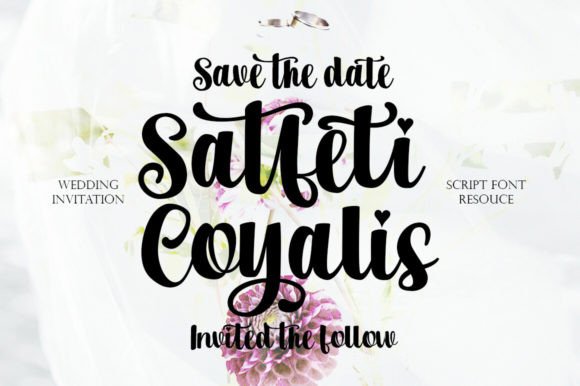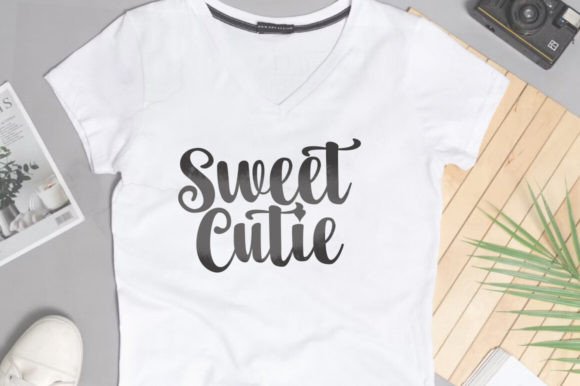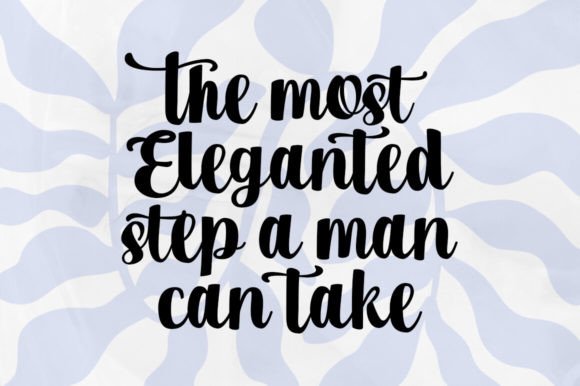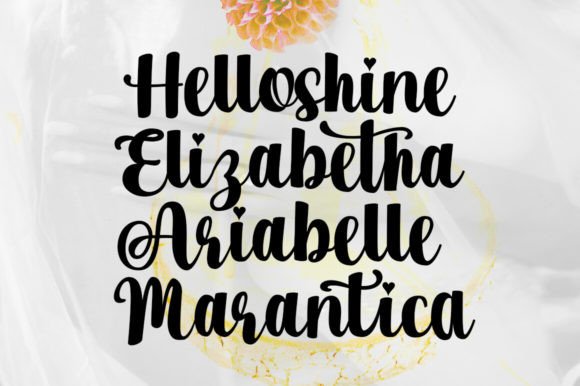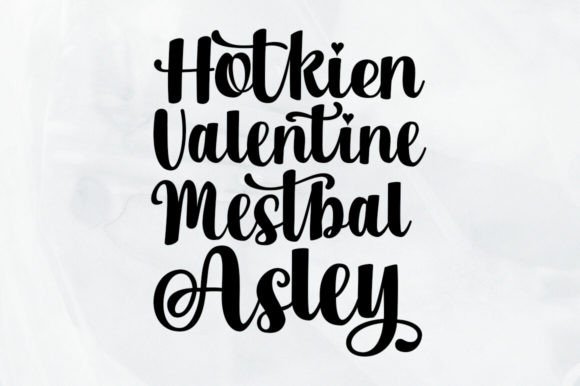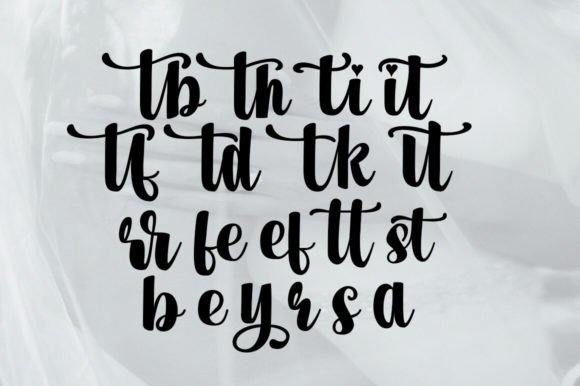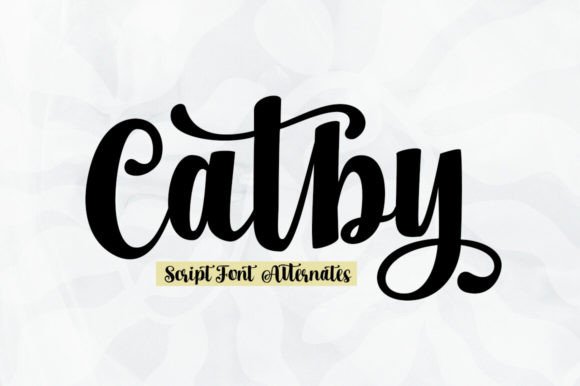
Introducing Catby Font: Elevate Your Designs with Elegance and Sophistication
Are you a designer or crafter looking for a font that exudes style, elegance, and sophistication? Look no further than Catby Font, a stunning script font that can elevate your designs to new heights. In this article, we’ll explore the features and benefits of Catby Font, and how it can be used to create beautiful and eye-catching designs.
What is Catby Font?
Catby Font is a stylish and incredibly elegant script font that is perfect for adding a touch of sophistication to any design. With its flowing lines and cursive strokes, Catby Font is ideal for creating beautiful and eye-catching designs that require a handwritten touch. Whether you’re designing wedding invitations, thank you cards, quotes, greeting cards, logos, or business cards, Catby Font is the perfect choice.
Features of Catby Font
So, what makes Catby Font so special? Here are just a few of its key features:
• Elegant and sophisticated design: Catby Font features a beautiful, cursive script design that is both elegant and sophisticated.
• Perfect for wedding designs: With its romantic and whimsical feel, Catby Font is perfect for wedding invitations, wedding cards, and other wedding-related designs.
• Versatile: Catby Font can be used for a wide range of designs, including thank you cards, quotes, greeting cards, logos, and business cards.
• Easy to read: Despite its elegant design, Catby Font is easy to read, making it perfect for designs that require a clear and legible font.
Benefits of Using Catby Font
So, why should you choose Catby Font for your designs? Here are just a few benefits of using this beautiful font:
• Adds a touch of elegance: Catby Font adds a touch of elegance and sophistication to any design, making it perfect for designs that require a high-end feel.
• Creates a personal touch: With its handwritten feel, Catby Font creates a personal touch that is perfect for designs that require a more personal and intimate feel.
• Versatile: Catby Font can be used for a wide range of designs, making it a versatile font that can be used again and again.
• Easy to use: Catby Font is easy to use and can be easily integrated into your designs.
How to Use Catby Font
So, how can you use Catby Font in your designs? Here are a few ideas to get you started:
• Wedding invitations: Use Catby Font to create beautiful and elegant wedding invitations that set the tone for the big day.
• Thank you cards: Add a touch of elegance to your thank you cards with Catby Font.
• Quotes: Use Catby Font to create beautiful and eye-catching quotes that can be used on social media or in designs.
• Greeting cards: Create beautiful and elegant greeting cards with Catby Font.
• Logos: Use Catby Font to create a beautiful and elegant logo for your business or brand.
• Business cards: Add a touch of sophistication to your business cards with Catby Font.
Tips and Tricks for Using Catby Font
Here are a few tips and tricks for using Catby Font in your designs:
• Pair with other fonts: Catby Font can be paired with other fonts to create a unique and eye-catching design.
• Experiment with colors: Catby Font looks beautiful in a range of colors, so don’t be afraid to experiment and find the perfect color for your design.
• Use it sparingly: While Catby Font is beautiful, it can be overwhelming if used too much. Use it sparingly to create a beautiful and elegant design.
In conclusion, Catby Font is a beautiful and elegant script font that is perfect for adding a touch of sophistication to any design. With its flowing lines and cursive strokes, Catby Font is ideal for creating beautiful and eye-catching designs that require a handwritten touch. Whether you’re a designer or crafter, Catby Font is a must-have font that can elevate your designs to new heights.